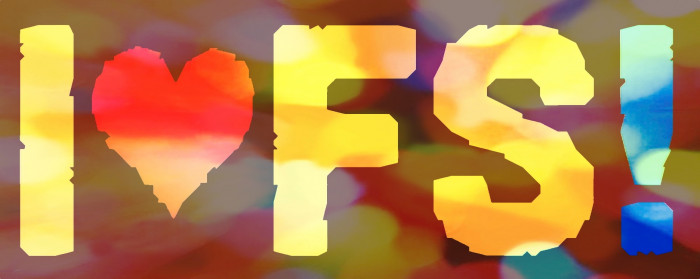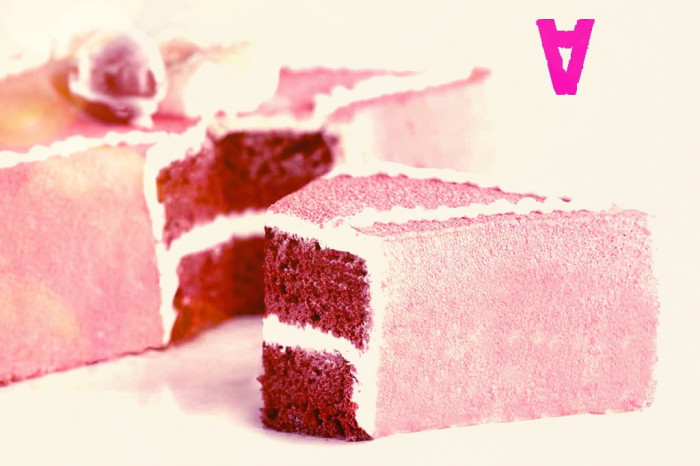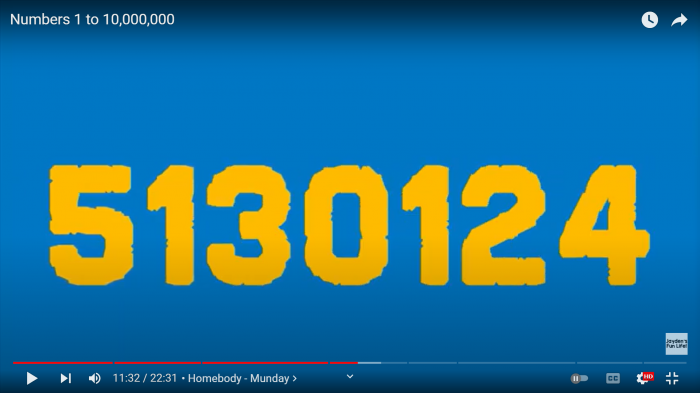
Caps only font. You can use the glyphs placed at the lowercase to add a different second letter in pairs like EE, FF, LL, NN, OO, SS, TT, ZZ, etc. and to avoid graphic repetitions in a single word or phrase. Extra "c" at the "¢" glyph. (NB: To create this one I have greatly exaggerated the method used by my admired Beate -sorry, Maestra- in her font db Whisper, which successfully simulated hand-drawn letters.)
Love the almost tattered look to the font
I started this font almost 12 years ago. I made a few characters out of it, just the necessary ones that I used in the logo for a potter friend's pretty shop called "Keramike" and a few more. Now it's finally finished, although my friend Kuky's store unfortunately had to close its doors shortly before the start of the Covid-19 pandemic.
Nice and rugged san serif. The small incisions lend the letters an eroded look. Twelve years of fighting the elements have taken its toll. : ) 10/10.
Love how the edges of these glyphs are decaying without losing their rock-solid shapes.
@four: Thanks, compa! I was actually trying to get the look of slightly worn solid letters but not lose their weighty feel. It was quite a fun task. ?
This is crazy cool, effective in its simplicity and very convincing looking wear and tear!
Well executed elmroyenique 10/10
This was the font that I was preparing this year to celebrate the XIV birthday of FS. For various reasons that are irrelevant, it was published a few days before and did not coincide with the celebration. Now I do, for everyone. Happy 14 years, dear! Long live FS! (Sorry, Rob)
(PS: BTW, inverted A stands "For All" in math.)
Instant classic. 10/10 Love the hand drawn effect, very rough and natural. One thing I noticed is the : and ; the dots are spaced differently. Was this intentional?
@winty5: Thank you, Noah! It was fun to deconstruct the glyphs and not leave them as polished as some of my other fonts. And answering your question, yes, the difference between ":" and ";" it's intentional, a design choice (wrong or right).